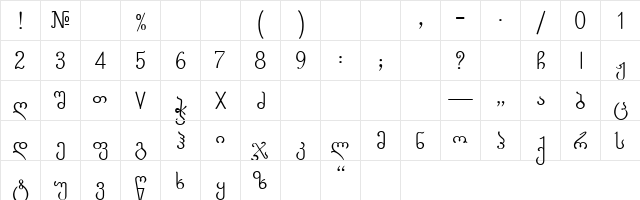
GEO-Gorda Regular
Design Context for GEO-Gorda Typeface
GEO-Gorda offers clean, dependable letterforms without strong stylistic allegiance, making it a practical choice for designers who need flexibility.